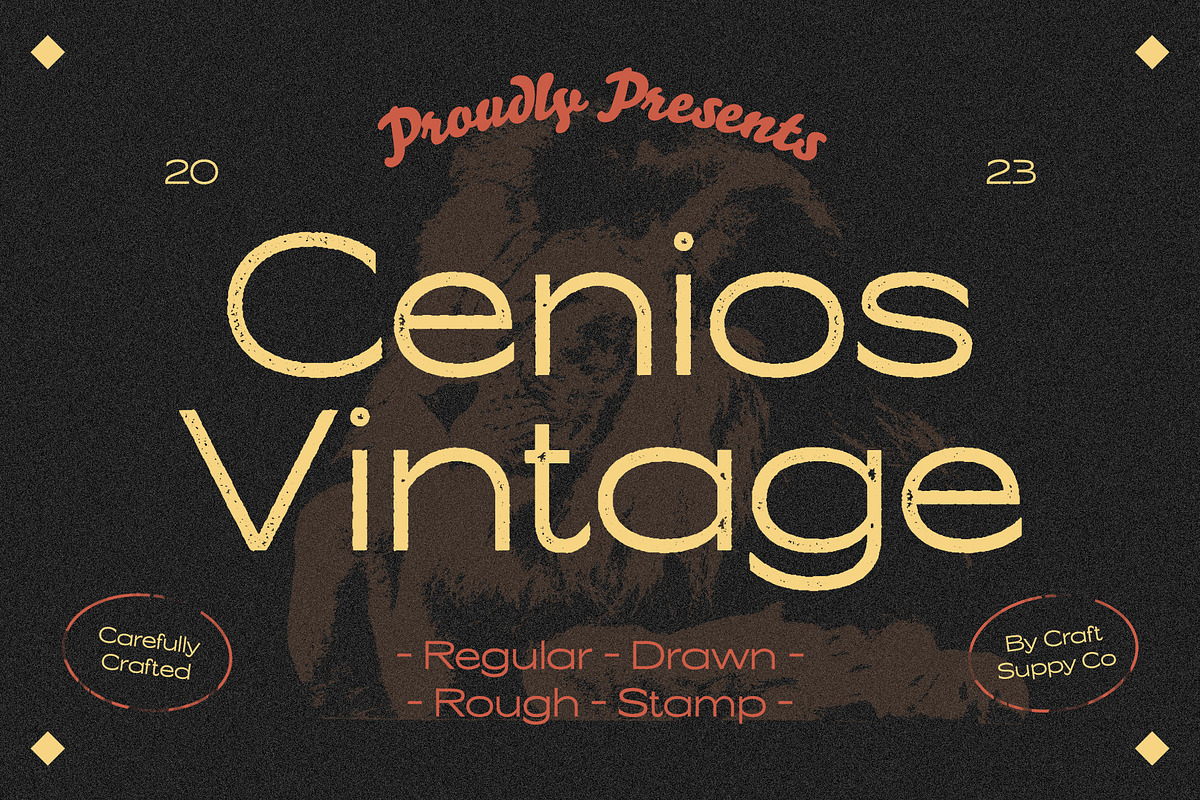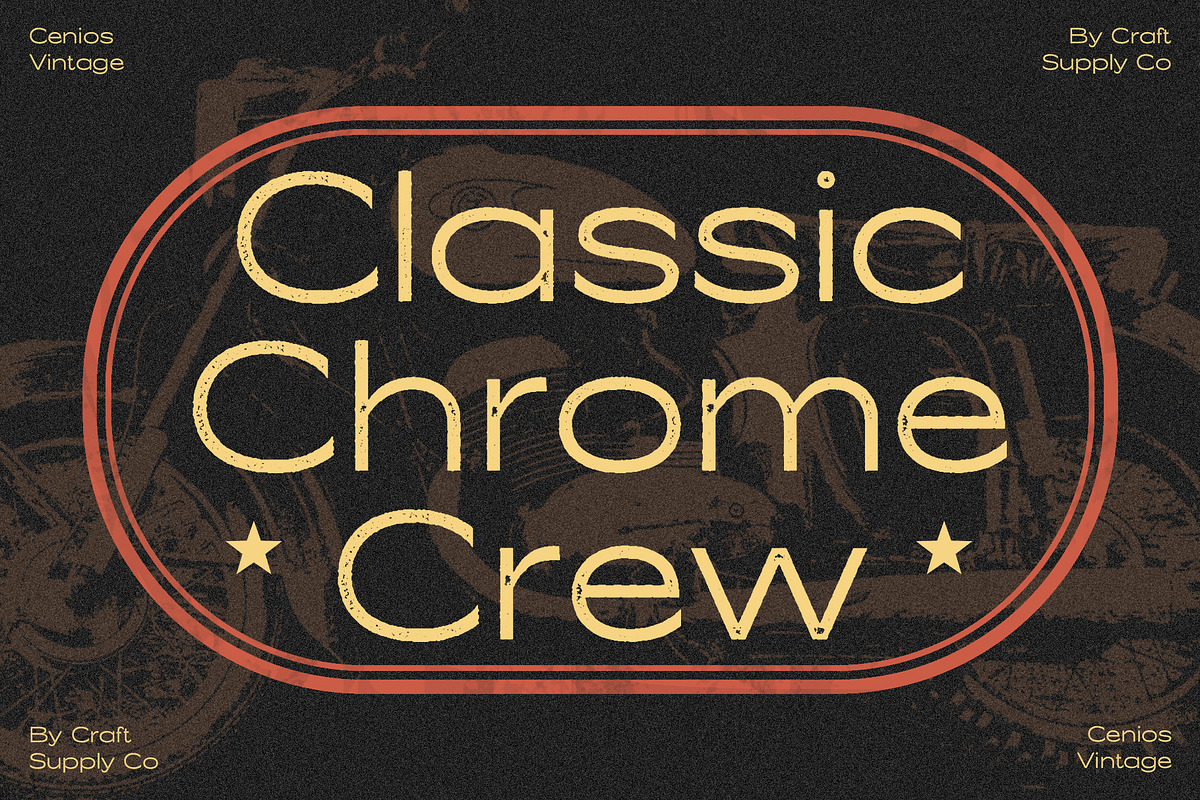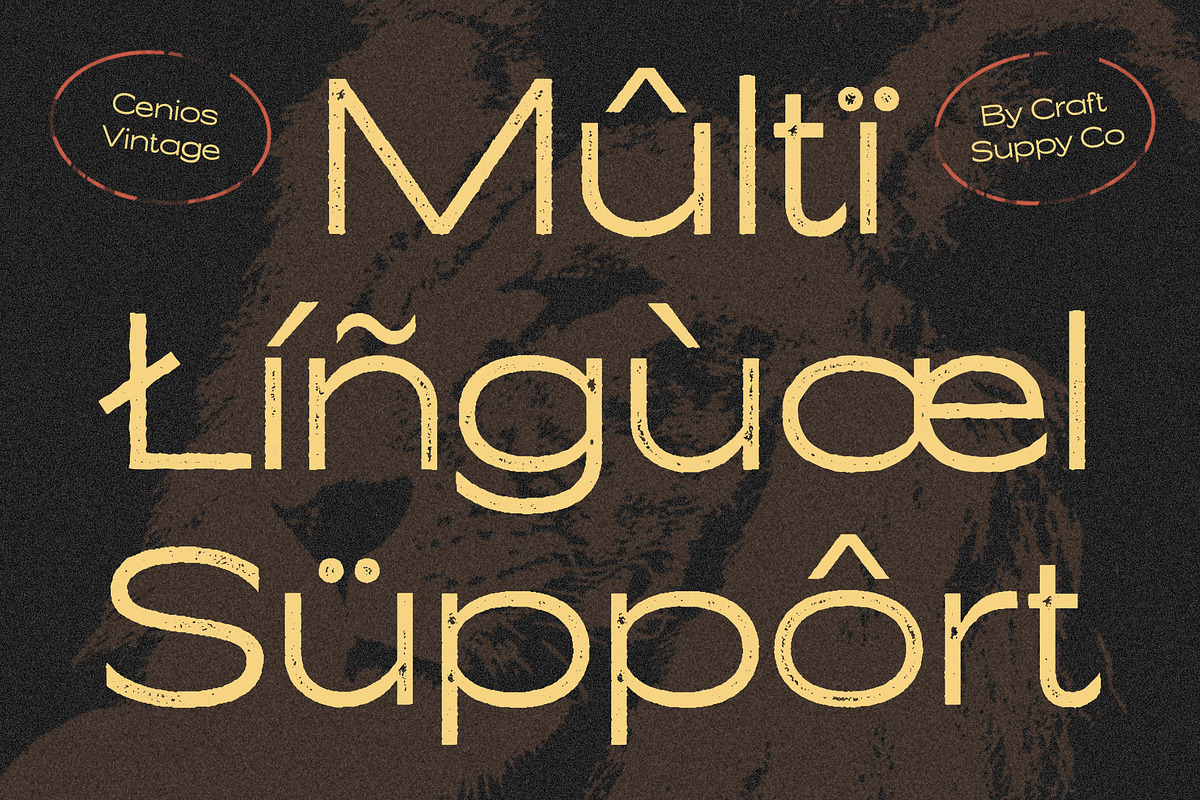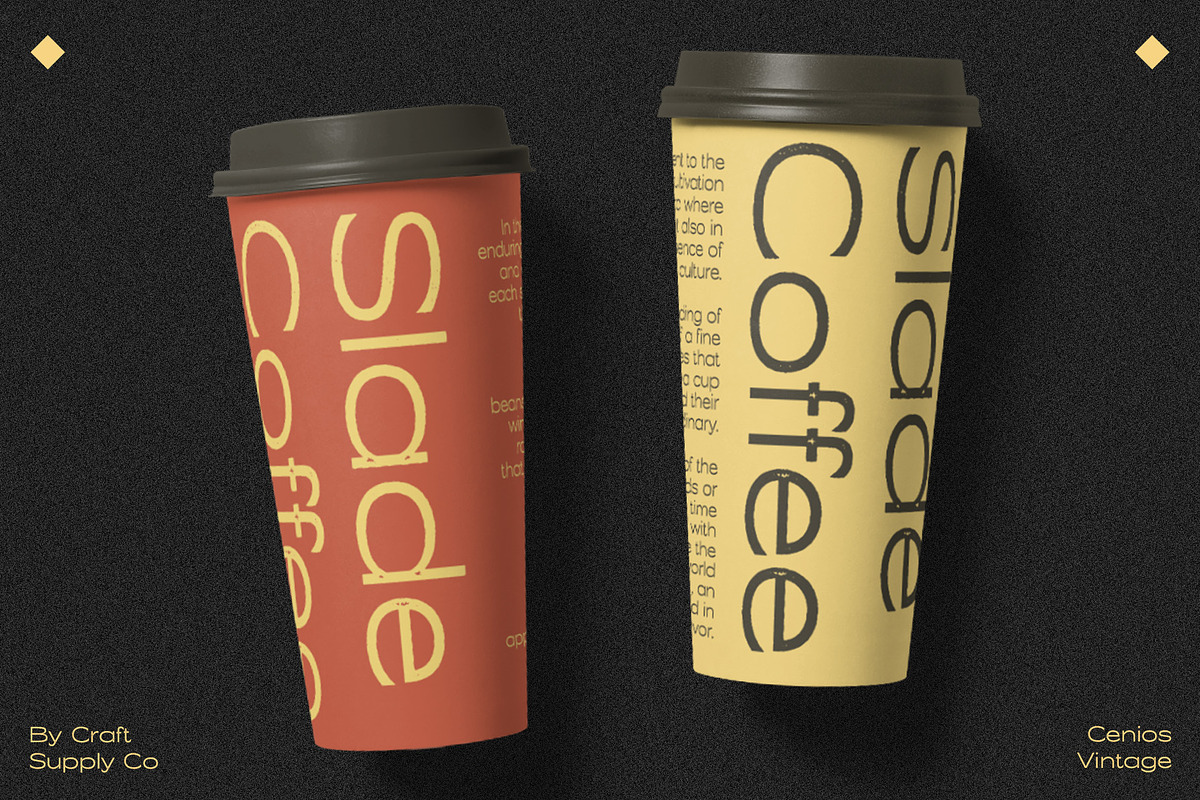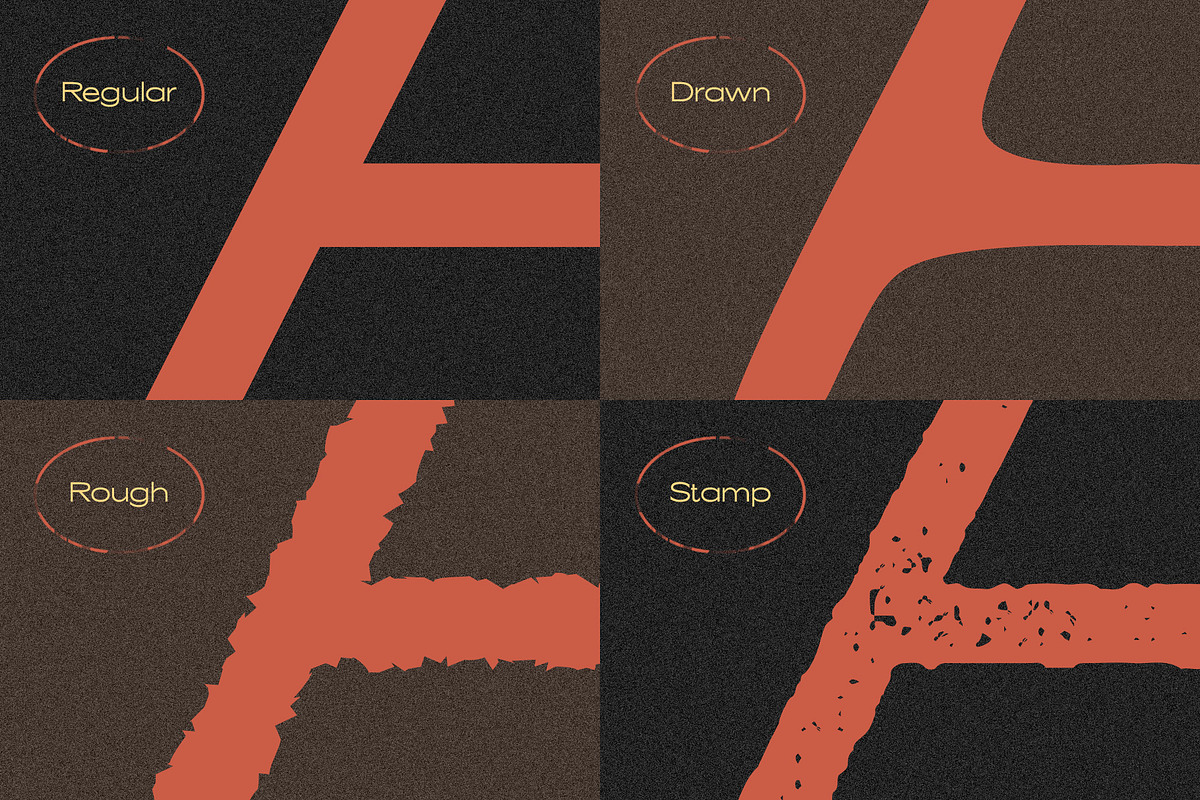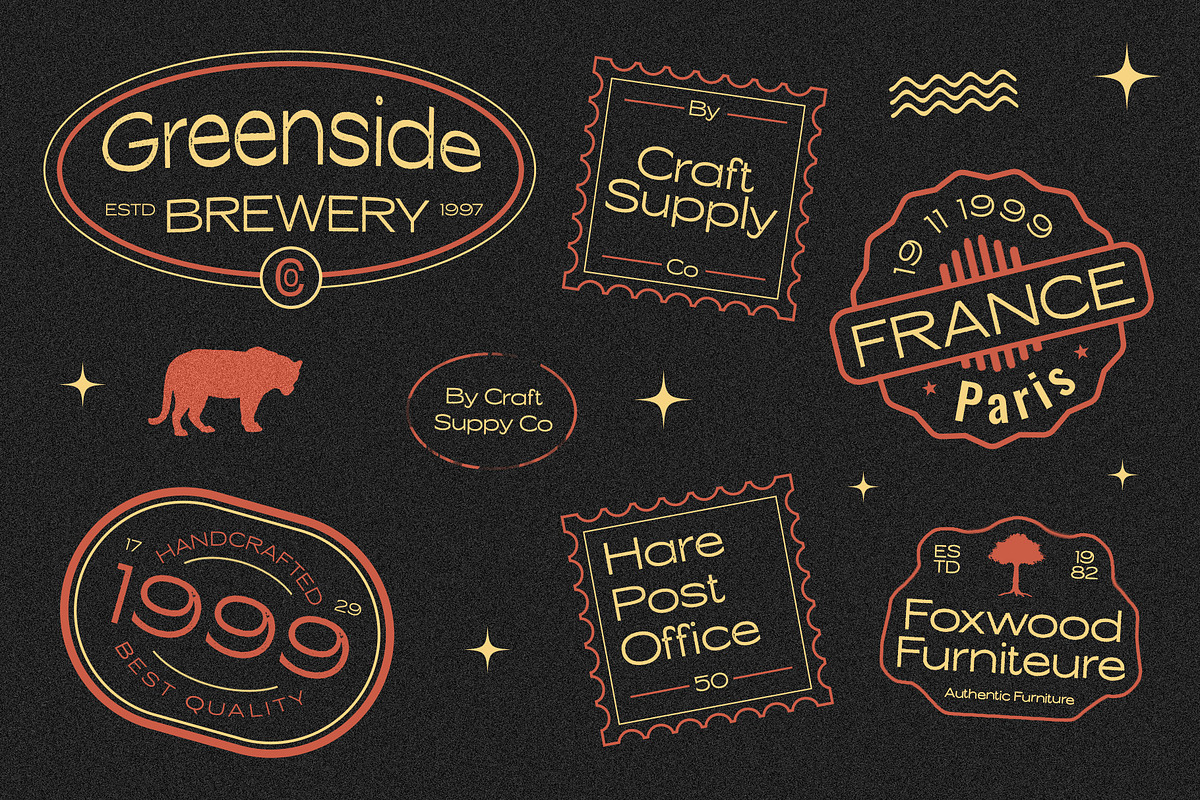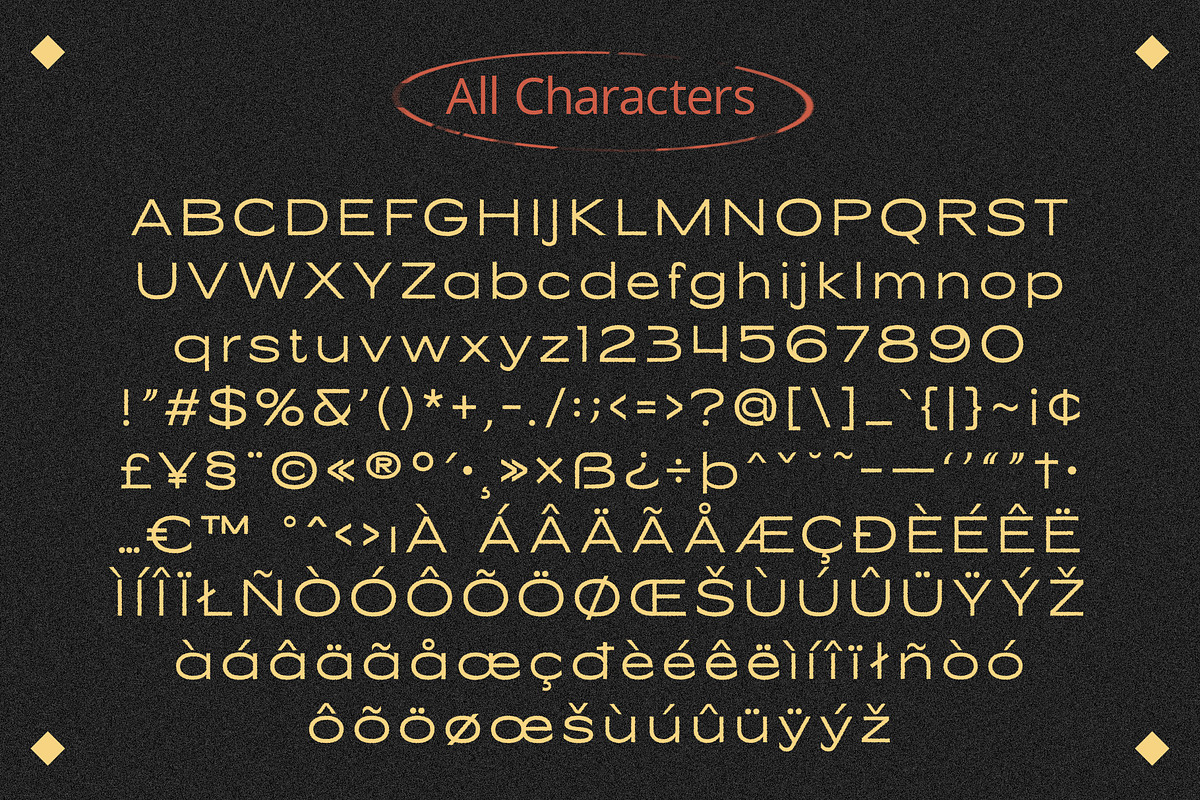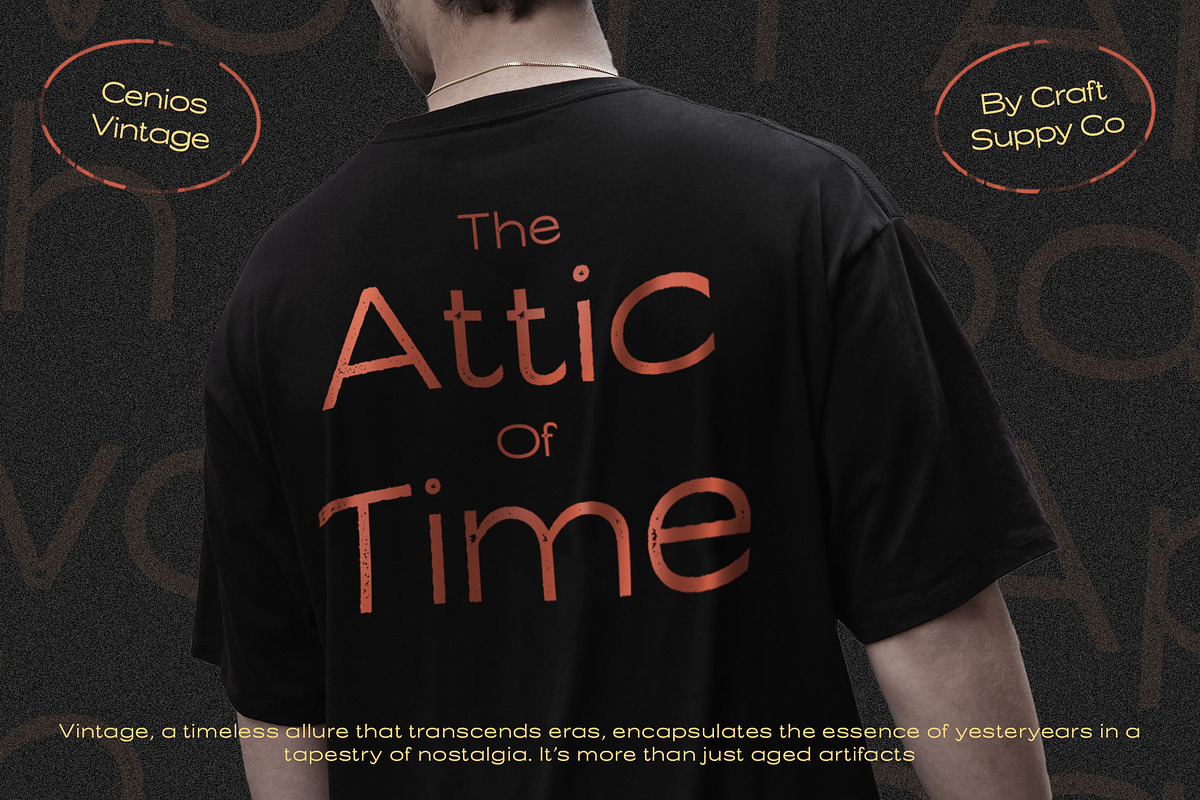
Cenios Vintage
Cenios Vintage: A Nostalgic Journey in Every Letter
Vintage Appeal, Modern Edge Cenios Vintage, a sans-serif display font, intricately blends vintage charm with a modern edge, creating a typeface that stands out.
Stamp of Authenticity Each character in Cenios Vintage carries the distinct stamp effect, giving the font an authentic and weathered appearance reminiscent of classic print styles.
Rough Elegance The rough texture of Cenios Vintage adds an elegant touch to its overall aesthetic. It’s a nod to the imperfections that give vintage designs their unique character.
Eye-Catching Vintage Vibe Cenios Vintage not only transports you to the past but also grabs attention with its eye-catching vintage vibe. The carefully crafted letters demand a second look in any design.
Versatility with Character Despite its vintage roots, Cenios Vintage adapts effortlessly to diverse design needs. From posters to branding, it brings character and a hint of nostalgia to every project.
Conclusion Step into the world of Cenios Vintage, where each letter tells a story of a bygone era. This font isn’t just a collection of characters; it’s a journey back in time with a modern twist, ensuring your designs are timeless yet relevant.
- Cenios Regular
- Cenios Drawn
- Cenios Rough
- Cenios Stamp